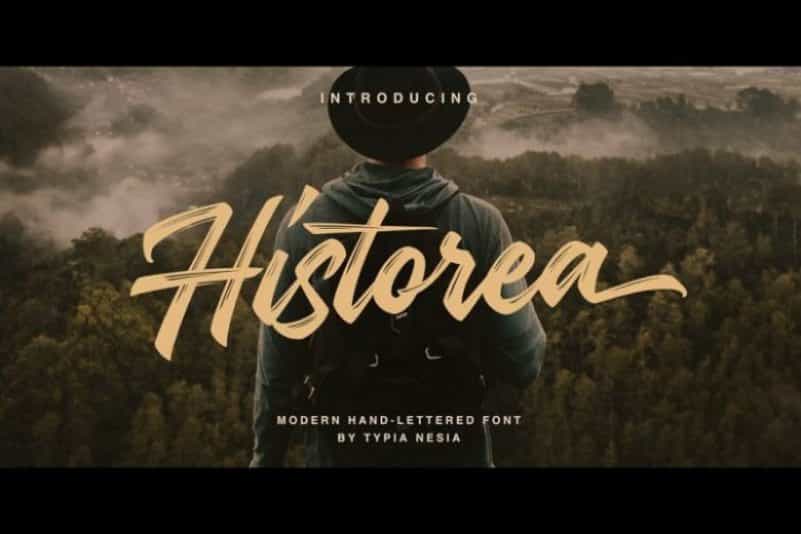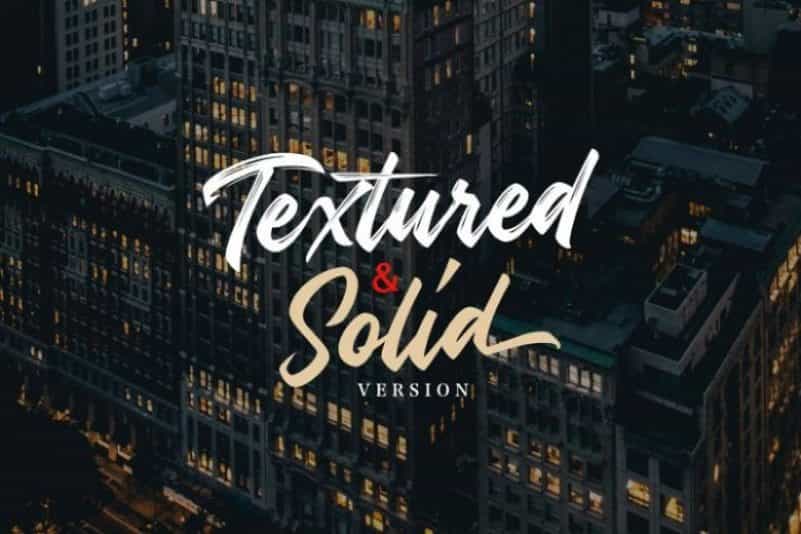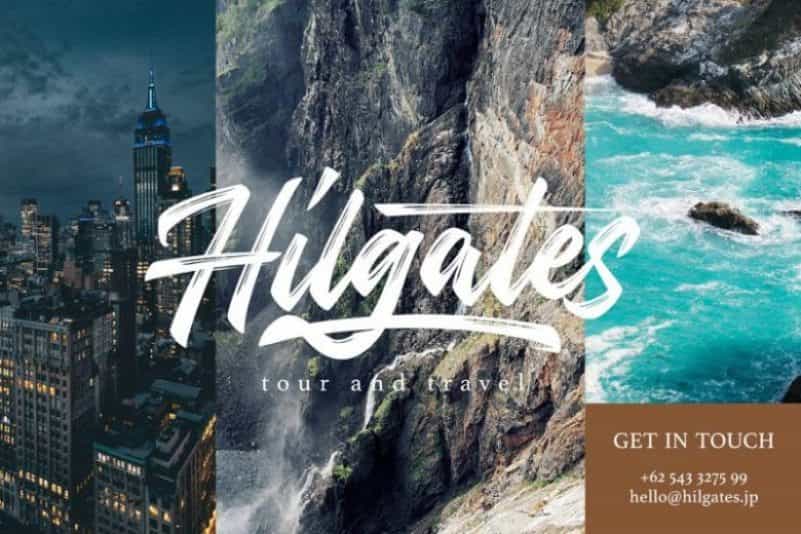
Historea Font is textured brush font with a contemporary approach towards design, handmade natural and has an irregular baseline. It is design and shared by Typia Nesia. It is modern and natural hand lettered font which is perfect for design lovers.